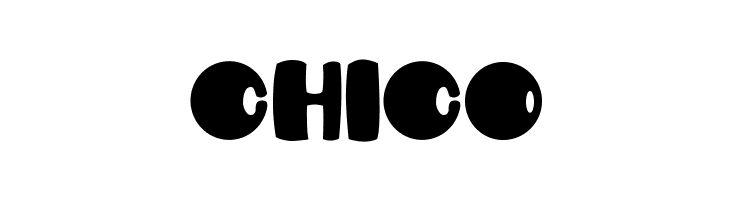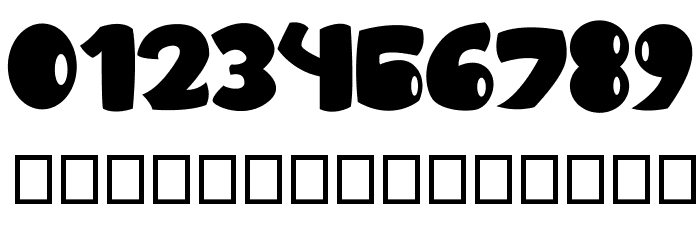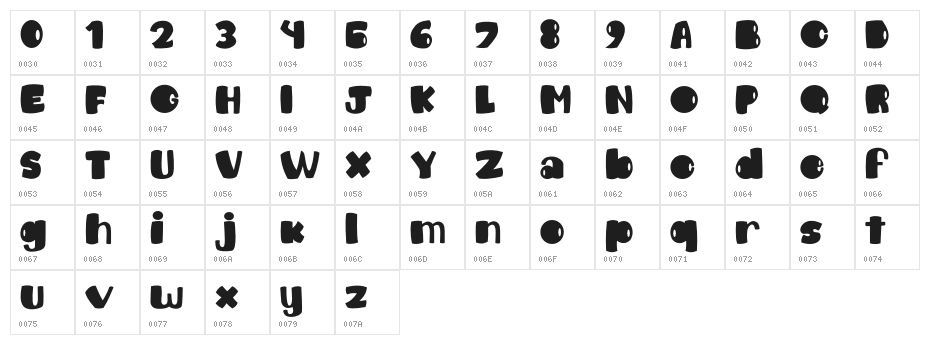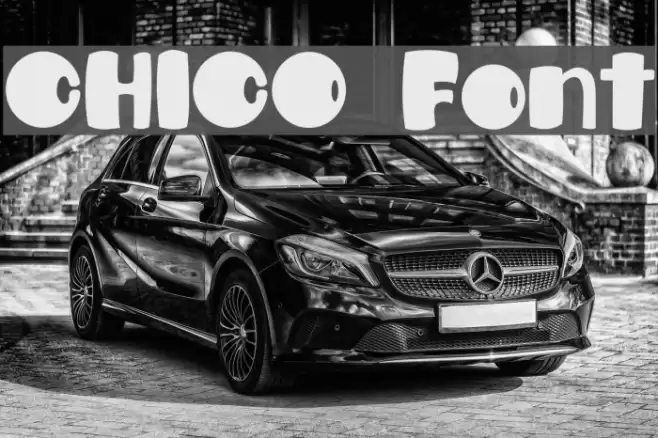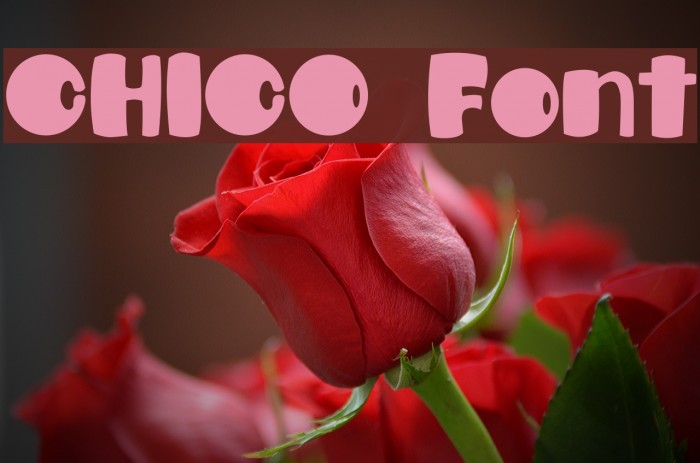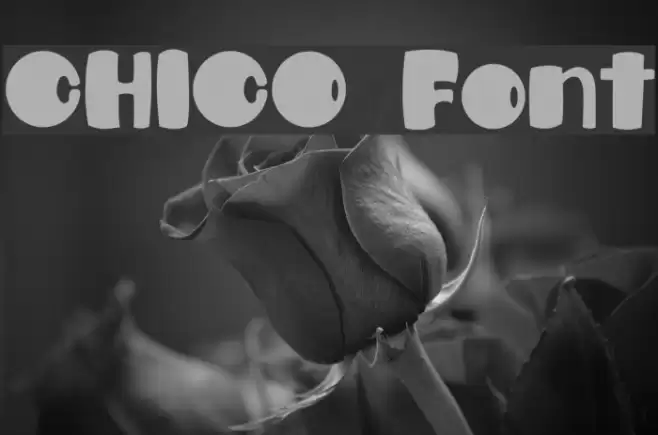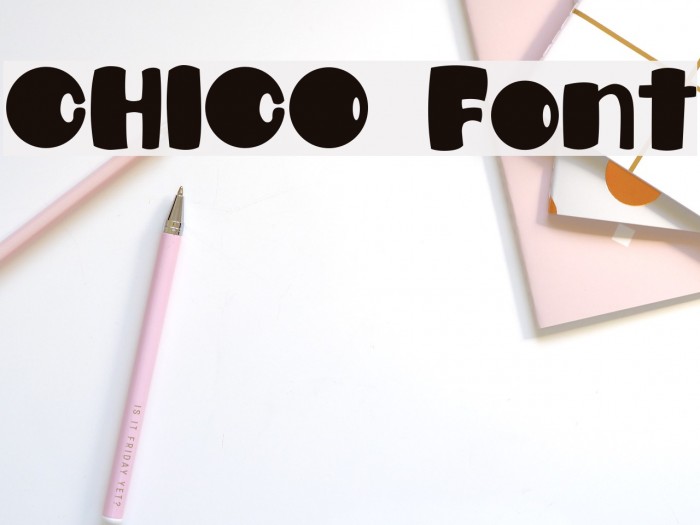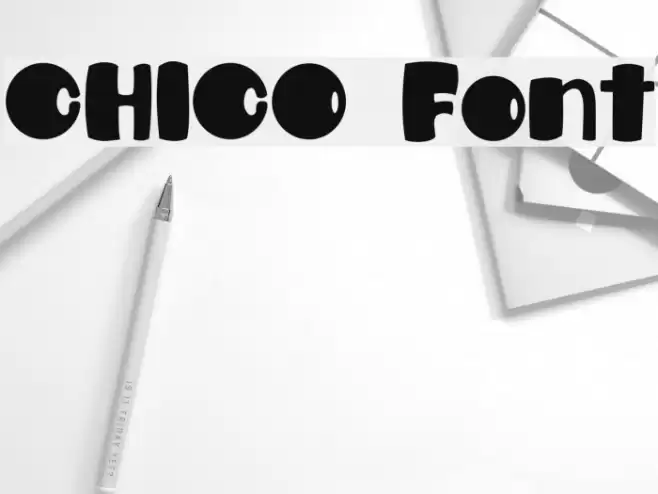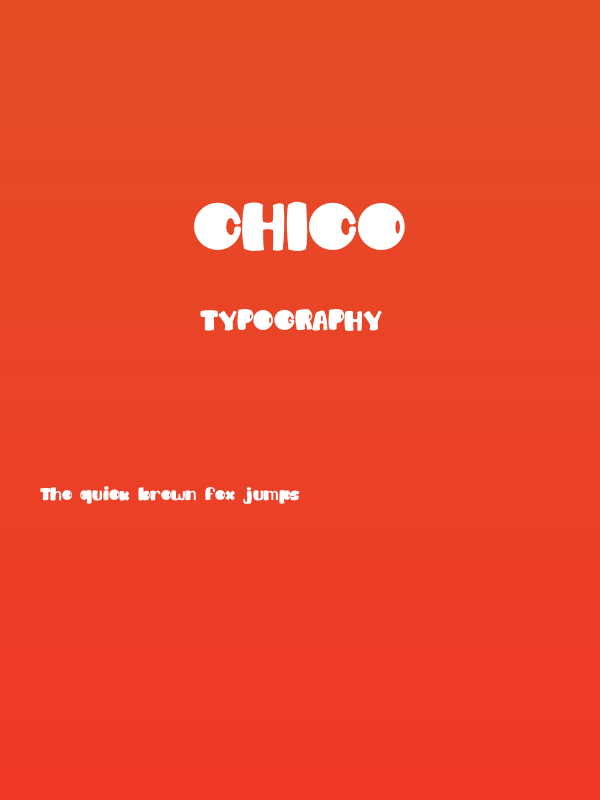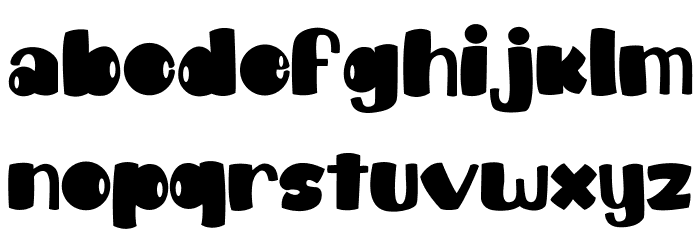
CHICO Font
CHICO Description
This playful and bold font features a unique, rounded style with exaggerated curves and a bubbly appearance. The characters are thick and substantial, giving them a strong presence on the page. The uppercase letters are particularly striking, with a whimsical flair that adds a sense of fun and creativity. The lowercase letters maintain the same playful aesthetic, with consistent thickness and rounded edges. Numbers and special characters follow the same design principles, ensuring a cohesive look across all elements. The font's overall style is both modern and decorative, making it suitable for a variety of creative projects.